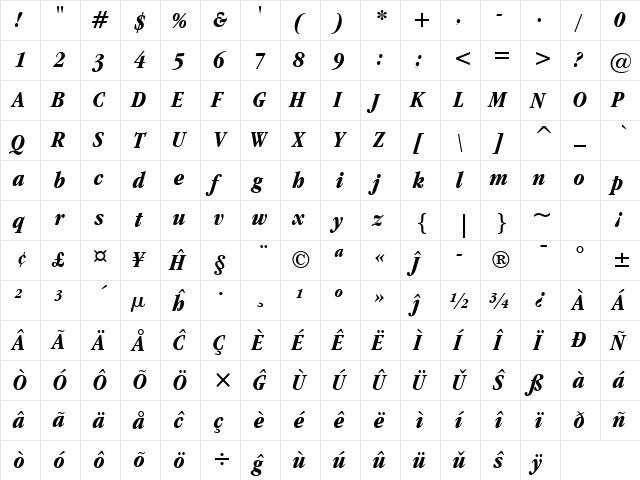
GarmdITC BkCn BT Eo Bold Italic Font Preview
Design Context for GarmdITC BkCn BT Eo Typeface
GarmdITC BkCn BT Eo offers clean, dependable letterforms without strong stylistic allegiance, making it a practical choice for designers who need flexibility. The dynamic lean of this cut emphasises speed and emphasis in any layout. Its bold stroke weight gives it real presence on the page.
Pro Tip: Try GarmdITC BkCn BT Eo for annotation and caption copy alongside an upright companion — the contrast in angle creates a dynamic but ordered typographic system.